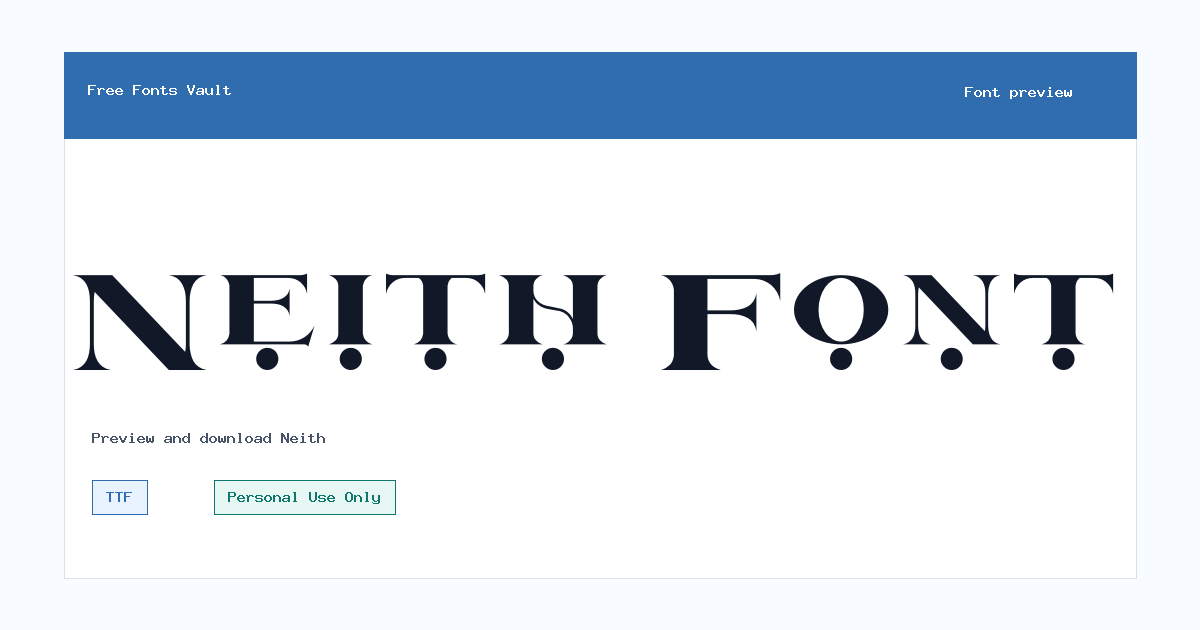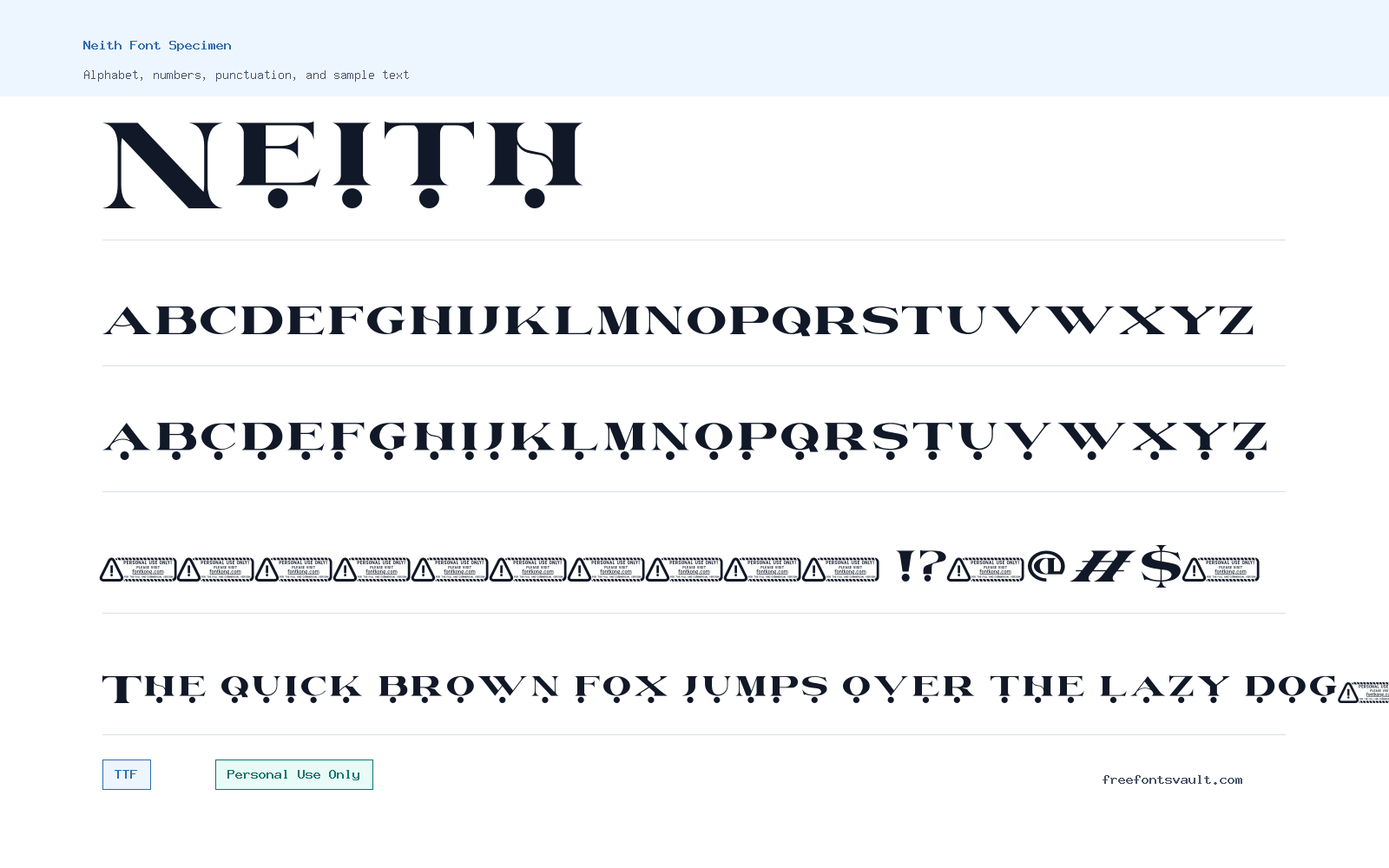
Neith
Neith font.
Neith is a personal-use serif font from Kong Font. It is a good choice to preview when you want a display-friendly serif with a more polished tone than a basic text face.
About Neith Font
Neith works best when you treat it as a font for titles, names, and short pieces of text rather than long paragraphs. Its serif structure gives words a formal, editorial feel, so it can suit projects such as invitation headers, quote graphics, boutique-style branding drafts, book-cover mockups, mood boards, and social posts. Because the available file is a regular TTF style, it is easy to test in many design apps and operating systems that support TrueType fonts. Start with a few words first, then try a full line to see how the spacing behaves with your exact wording.
For the best preview, type the name, headline, or phrase you actually plan to use. Check uppercase letters, lowercase letters, numbers, and punctuation before downloading, especially if your design needs dates, prices, initials, or special symbols. Serif display fonts can look elegant at larger sizes but may lose clarity when they are squeezed into small captions or dense body copy. If you use Neith in a layout, pair it with a simple sans serif for supporting text so the main wordmark or heading can stay clear. Keep line lengths short, add enough spacing around the letters, and avoid placing it over busy images unless the contrast is strong.
- Serif styling suited to short display text and decorative headings
- Invitations, quote graphics, title designs, and personal branding mockups
- Book-cover concepts, social media headers, and elegant short-text layouts
What is Neith best used for?
Neith is most useful for short, decorative serif text such as titles, invitations, quote images, book-cover concepts, and personal design mockups.
Should I use Neith for body text?
It is better to test it carefully before using it for long reading. A serif like this is usually safer for headings and short lines, with a simpler companion font for paragraphs.